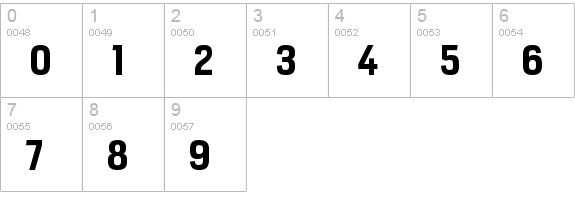
HeronSansCond SemiBold Font Details
HeronSansCond SemiBold is a sub-bold, structured variant in the HeronSansCond typeface family \xE2\x80\x94 well suited to sub-headlines and emphasised passages.
HeronSansCond SemiBold is a versatile and modern font that exudes confidence and sophistication. With its bold weight and condensed structure, this typeface is perfect for making a statement in headlines, titles, and branding materials. The sleek and clean design of HeronSansCond SemiBold ensures readability and impact across various platforms and applications. What sets HeronSansCond SemiBold apart is not just its striking appearance, but also the fact that it is available for free download at FontsMarket.com. This means that you can elevate your designs without any additional cost, making it a valuable asset for designers, creatives, and enthusiasts alike. Don't miss out on the opportunity to enhance your projects with HeronSansCond SemiBold - download it now and unleash your creativity!